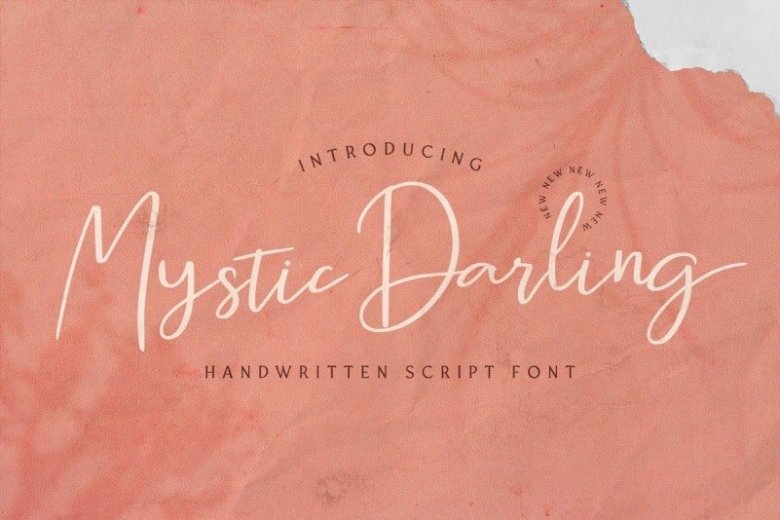
Mystic Darling Handwritten Font
Introducing Mystic Darling Font – is an elegant, modern hand-written, feminine typeface. Uppercase letters are ideal for your wedding monograms and logos.
Use this font for wedding invitations, branding, packaging, magazines, letterpress address, social media, restaurant menus, greeting cards, headers and so on.